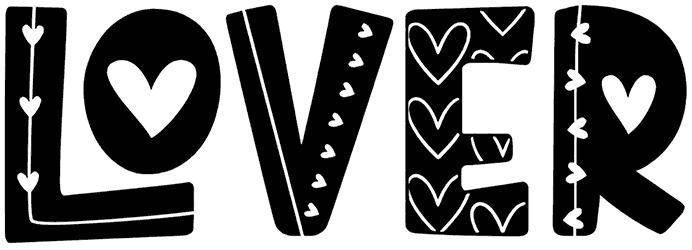
Lover Font
If you really need a decorative font to add an artistic touch to your artwork like flyers, brochures, announcements, illustrations, and gift cards, we offer you to pick up Lover, a magical heart font that is designed with romantic symbols and carries a sense of softness, delicacy, dreaminess, or kindness.